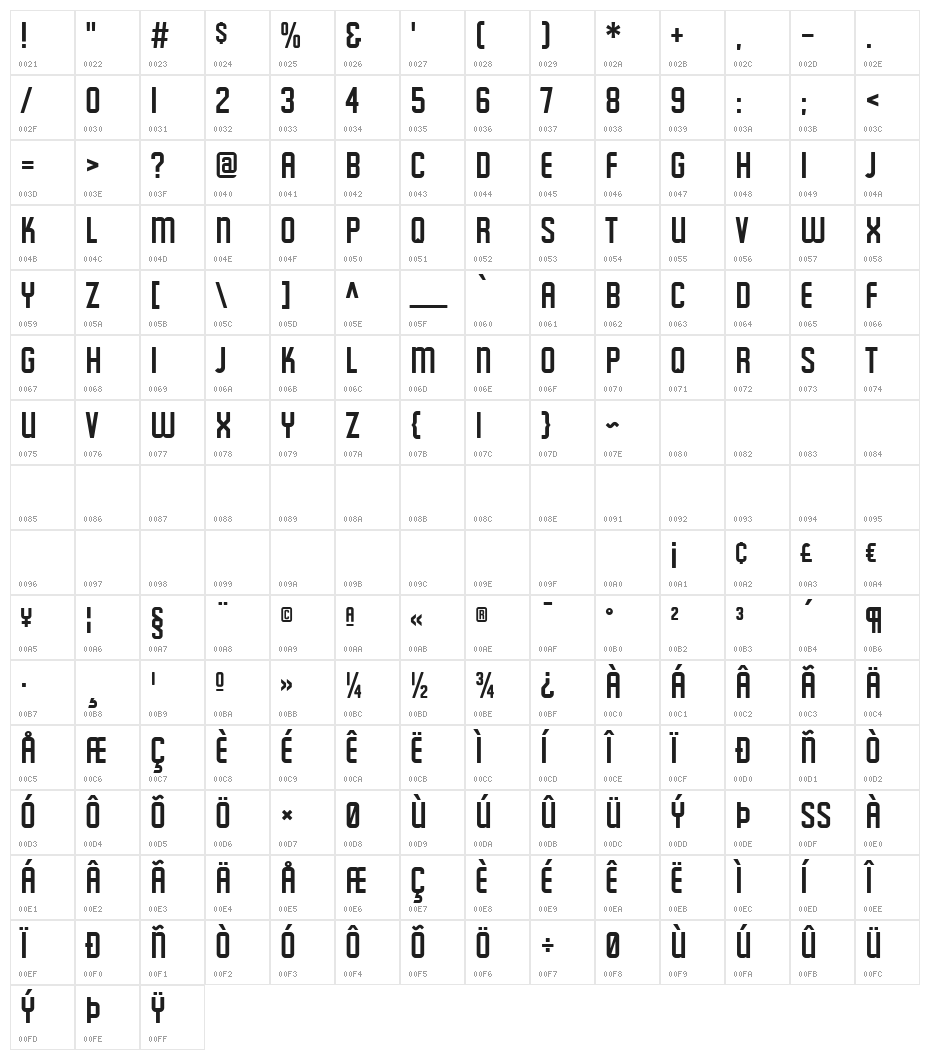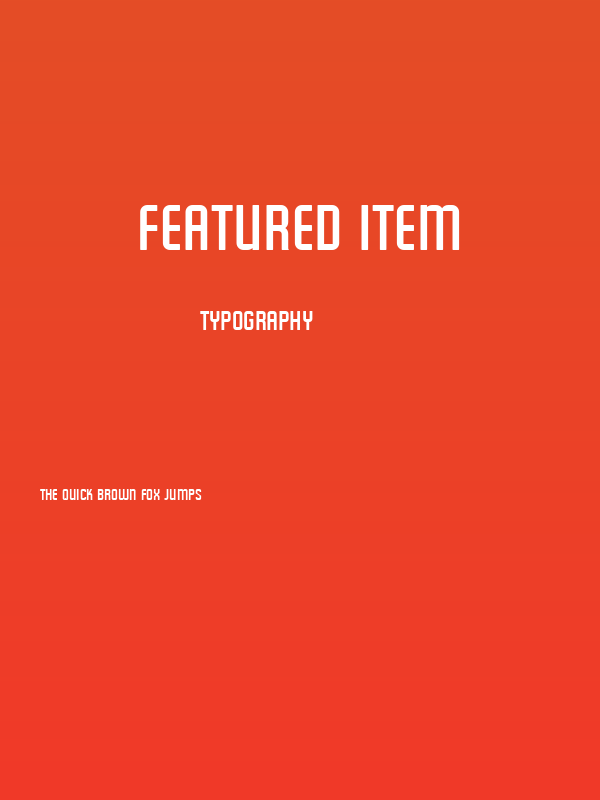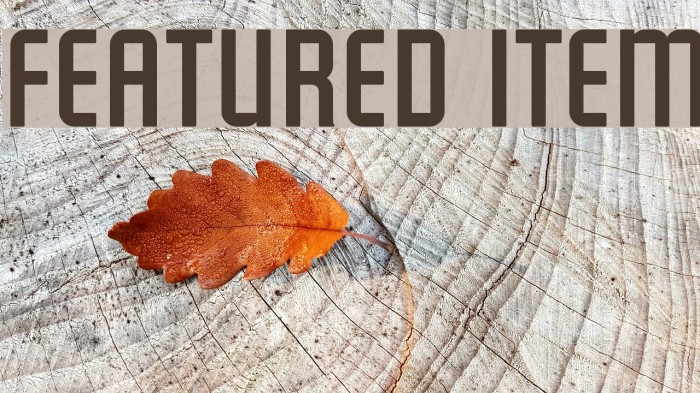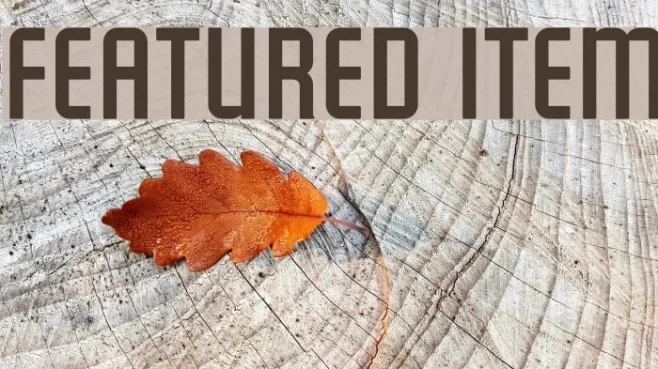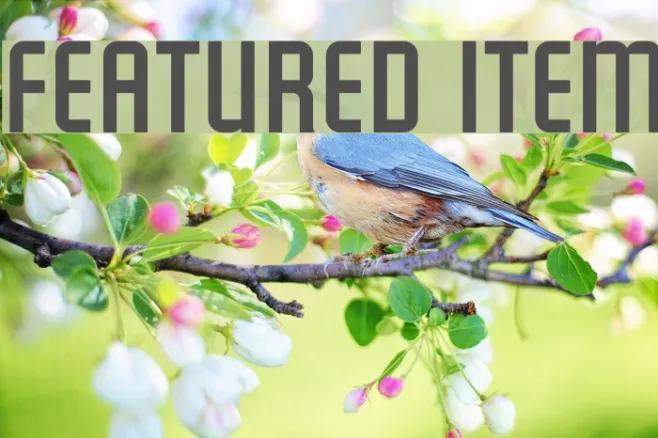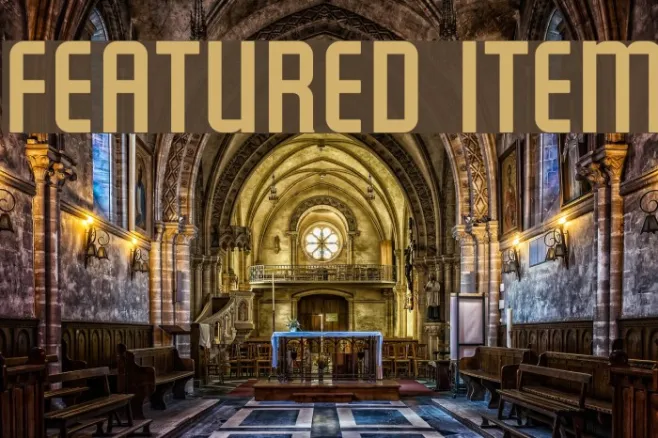
Featured Item Font
Featured Item Description
This font features a bold, geometric design with a strong presence. The characters are uniform in width, giving it a monospaced appearance, although it is not strictly monospaced. The uppercase letters are tall and commanding, while the lowercase letters maintain a consistent height that complements the uppercase. The numerals are clear and easy to read, matching the overall boldness of the font. Special characters are distinct and maintain the font's geometric style. The font's design is modern and suitable for digital displays, with a focus on clarity and impact.
| Proposed Projects | Ideal for digital displays, branding, headlines, and posters where a strong visual impact is desired. |